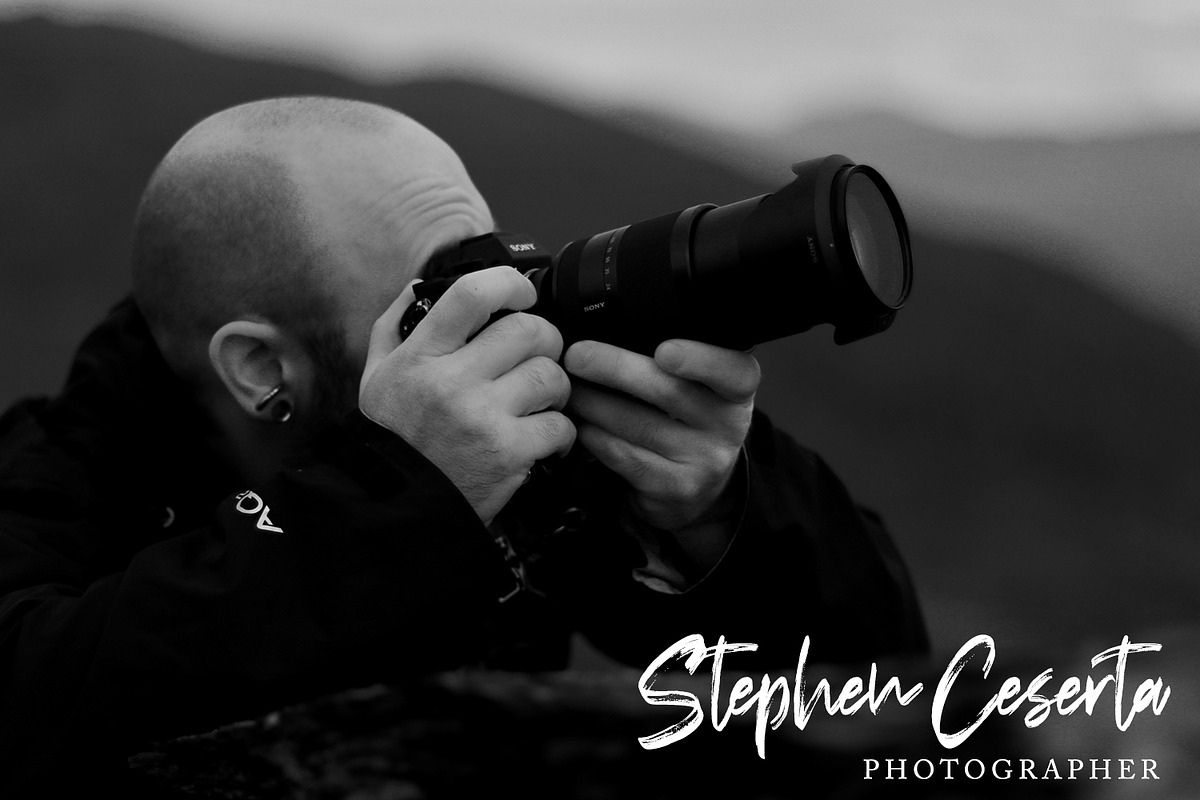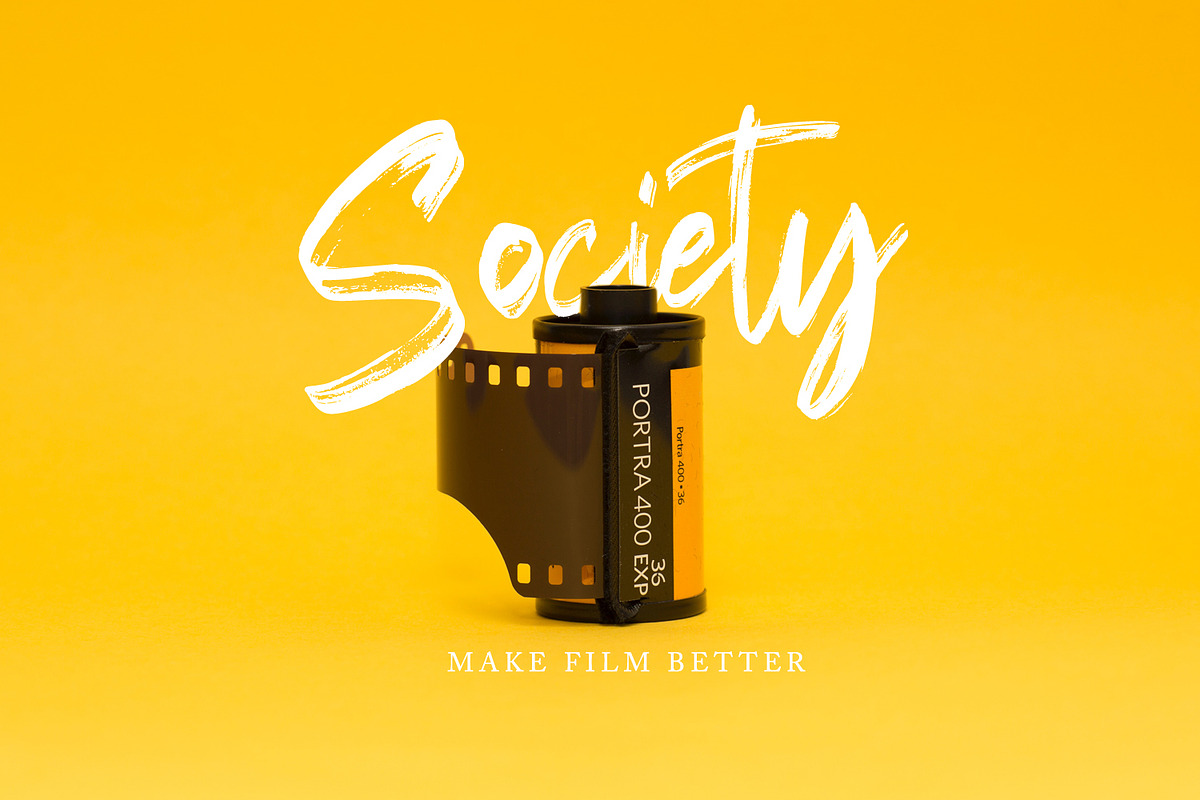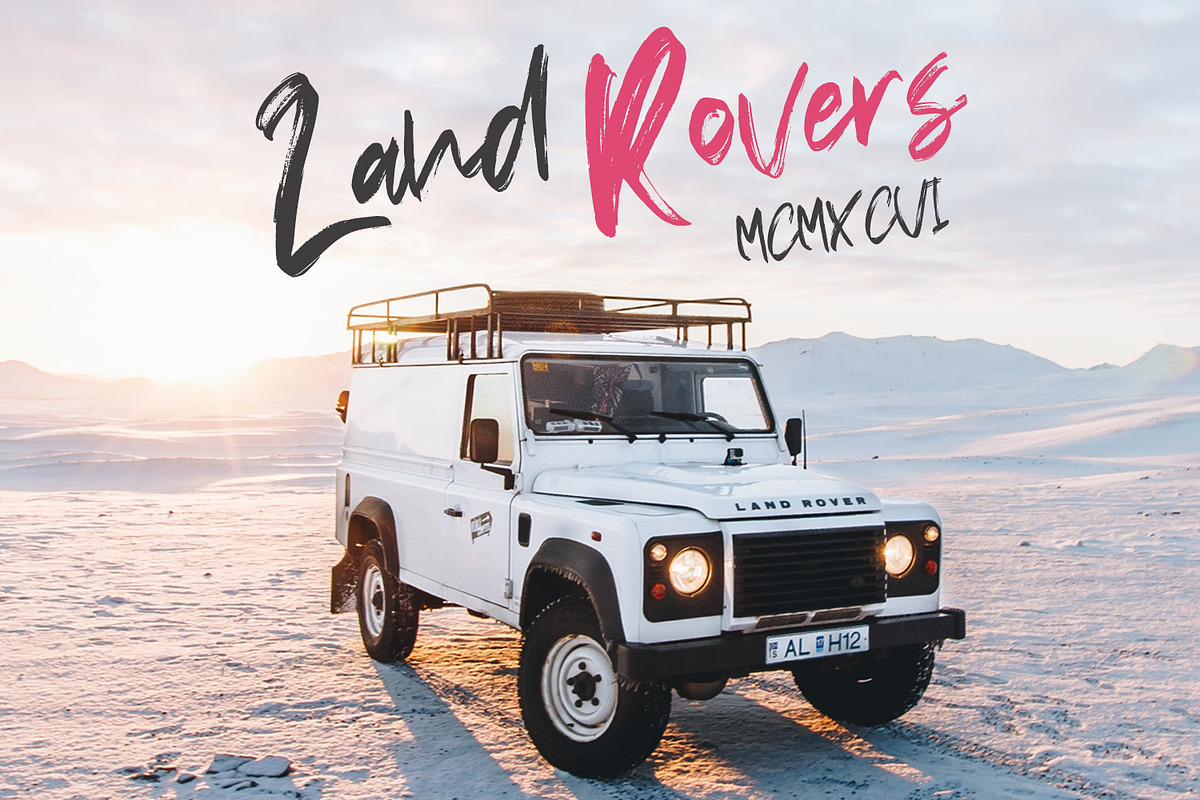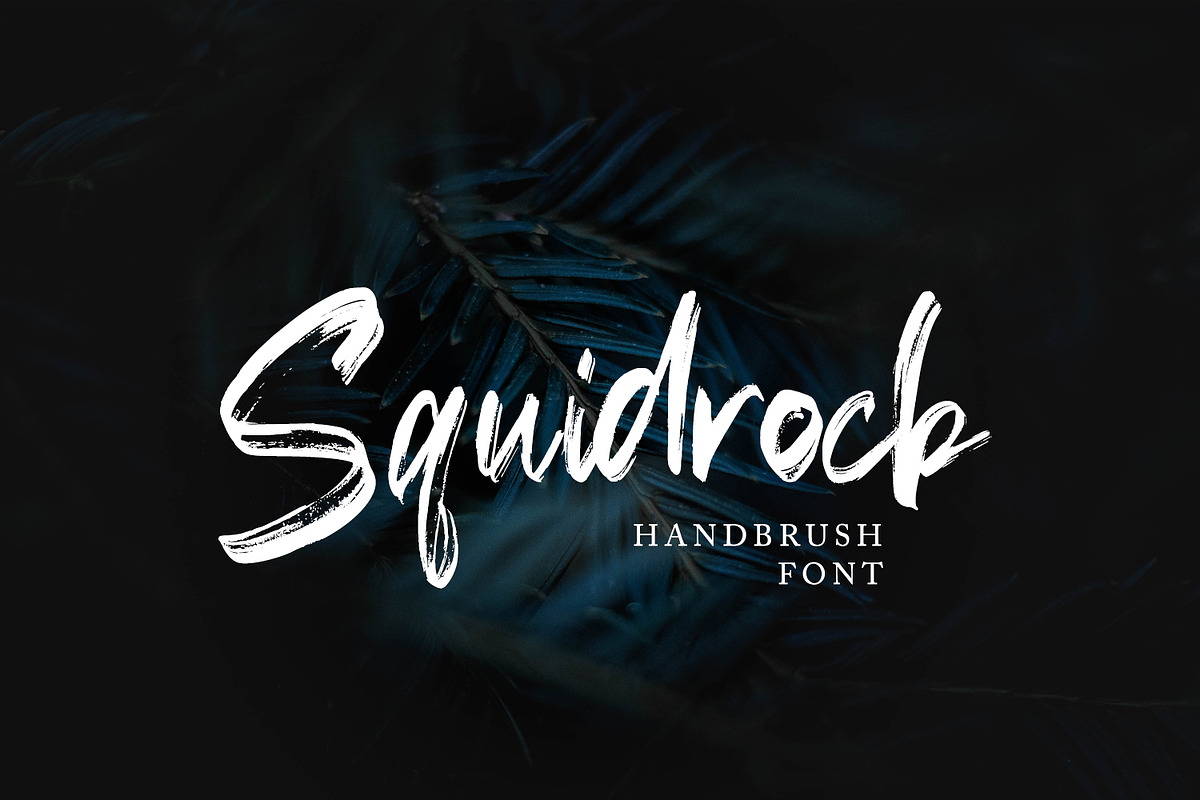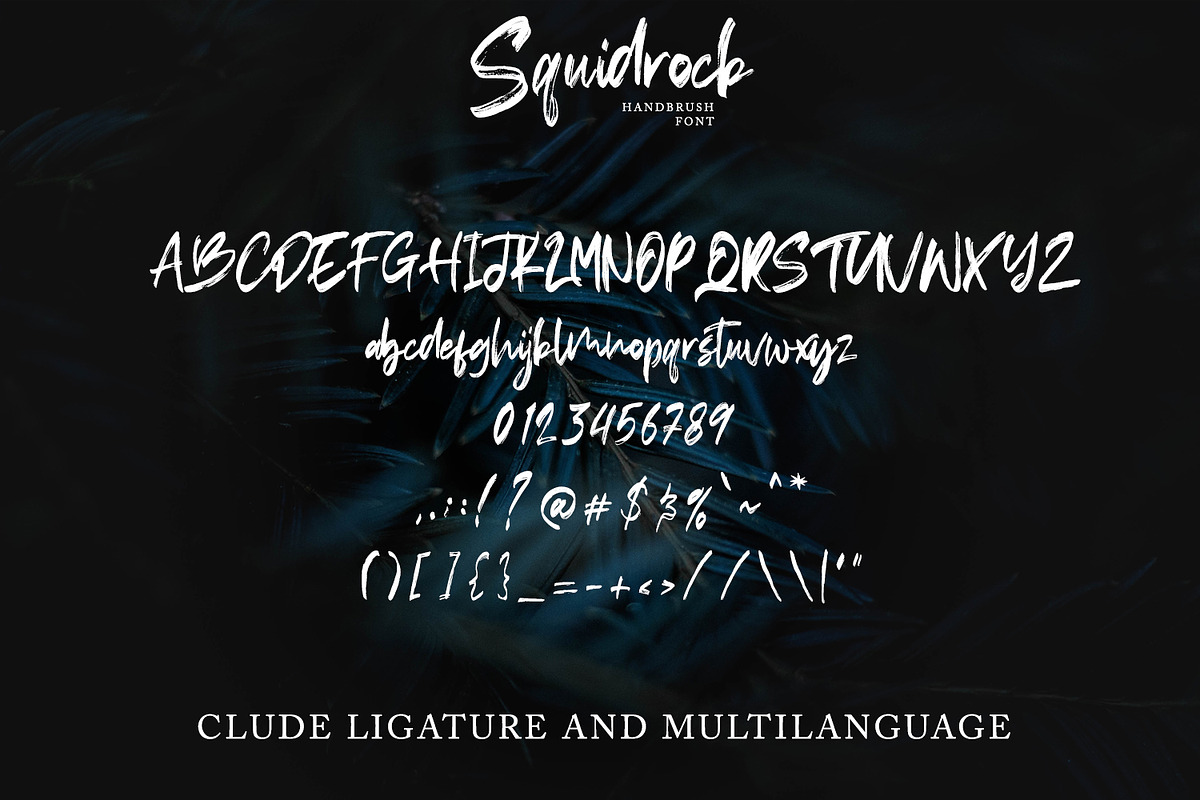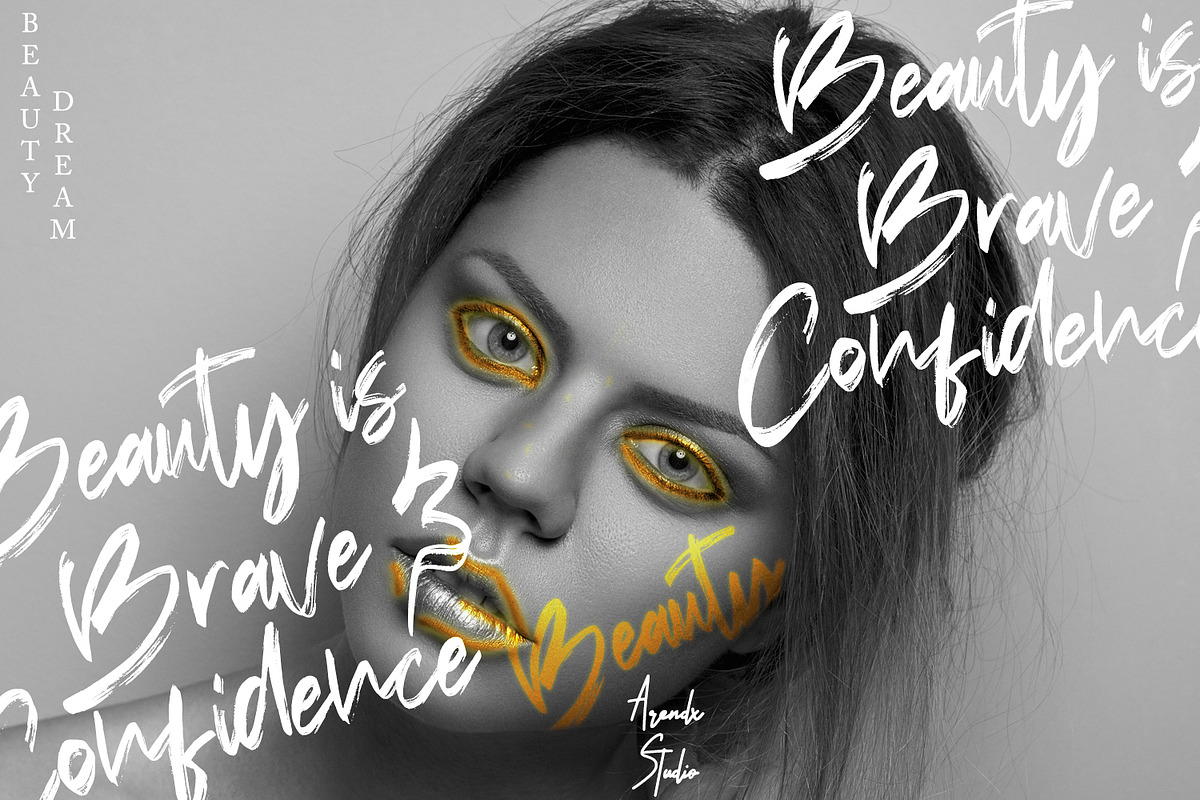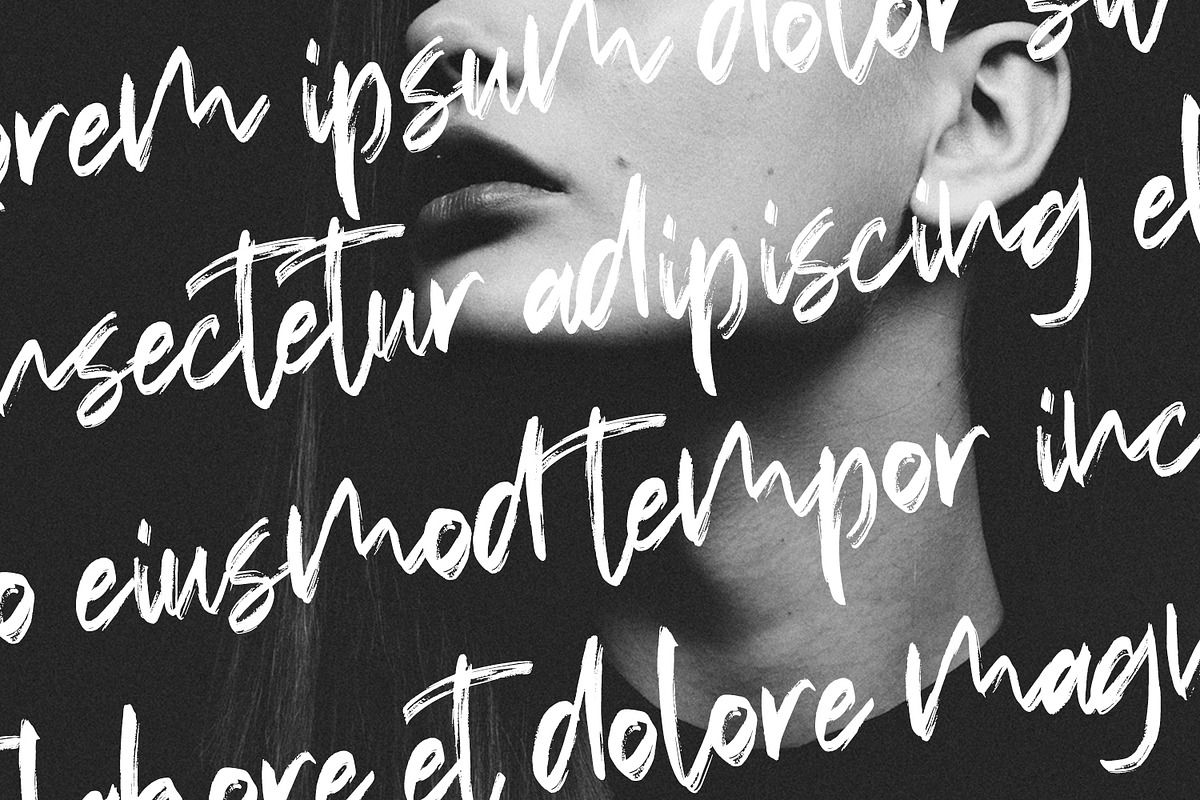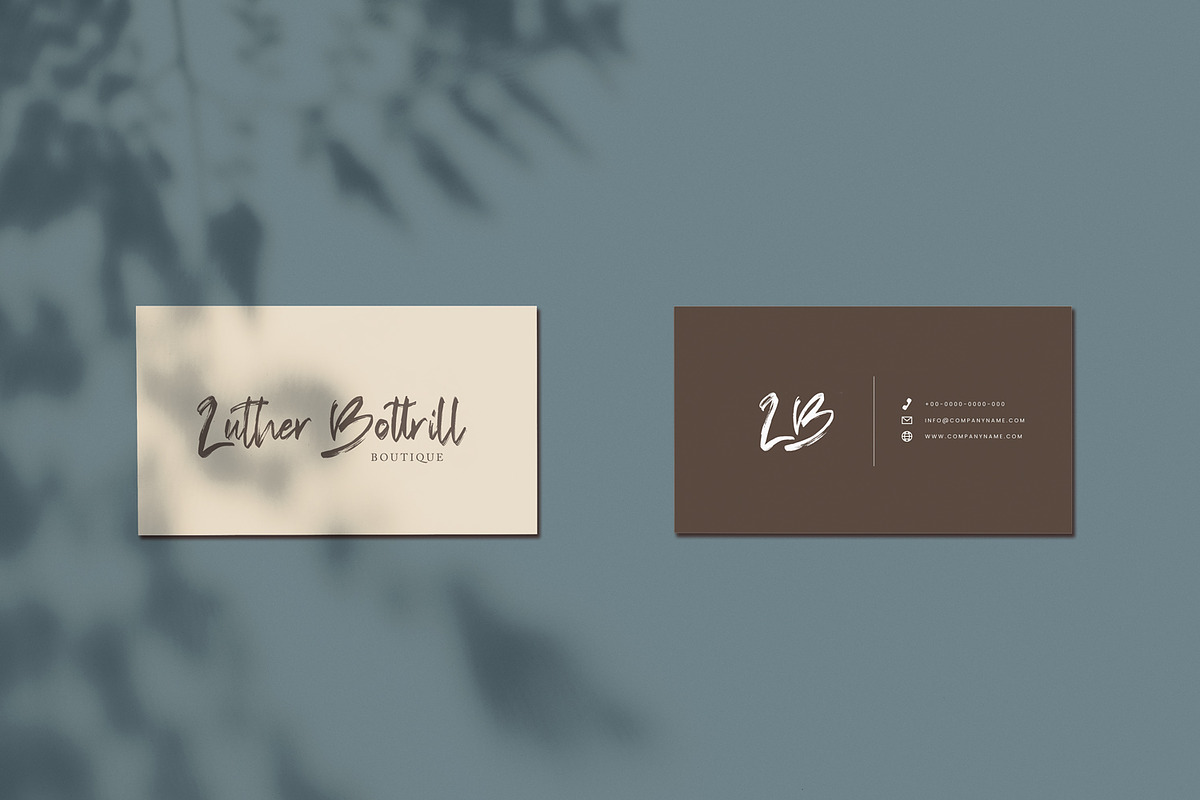
Squidrock - Handbrush Typeface
Squidrock Handbrush Script Font is a font with distinctive handwritten characters perfect for branding projects, logos, wedding designs, media posts, advertisements, product packaging, product designs, labels, photography, watermarks, invitations, stationery, and any project who need handwritten dishes.
Squidrock - Handbrush Typeface by Arendxstudio fits naturally into Branding, posters, packaging, typography.